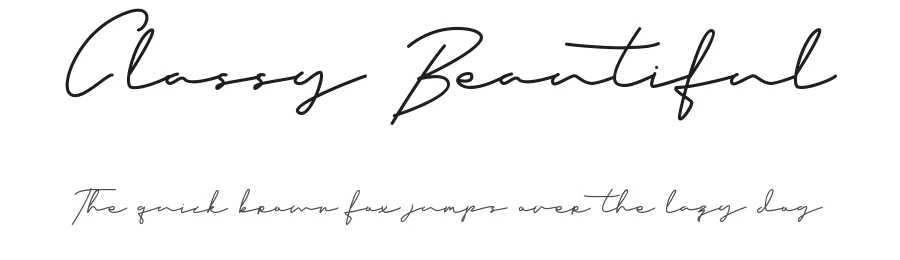
About Dienilla Font
DIENILLA
- elegant signature font-
It comes with a lot of features :
- 3 weights (Thin, Regular, Bold)
- 2 styles of ending swash (all lowercase)
Dienilla Font is a script font that shines as a display or heading face. Pair it with a clean sans-serif or serif font for body text β the contrast creates a clear hierarchy while the two styles stay balanced and easy to read.